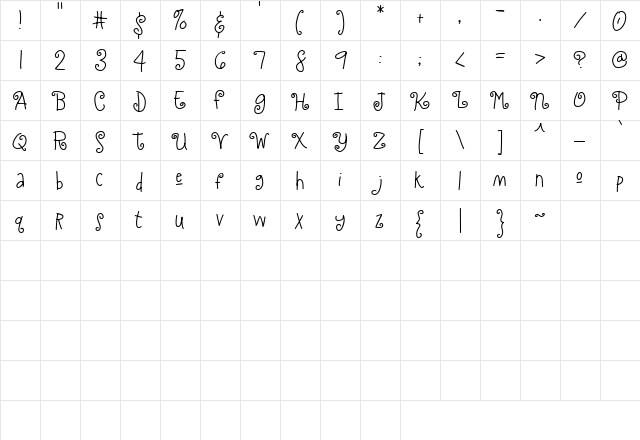
Scrap Silly Regular
Design Context for Scrap Silly Typeface
Scrap Silly is a composed and adaptable typeface that performs quietly and consistently across a wide range of design contexts.
Pro Tip: Pair Scrap Silly with a font of contrasting weight or personality to build a more expressive typographic hierarchy.